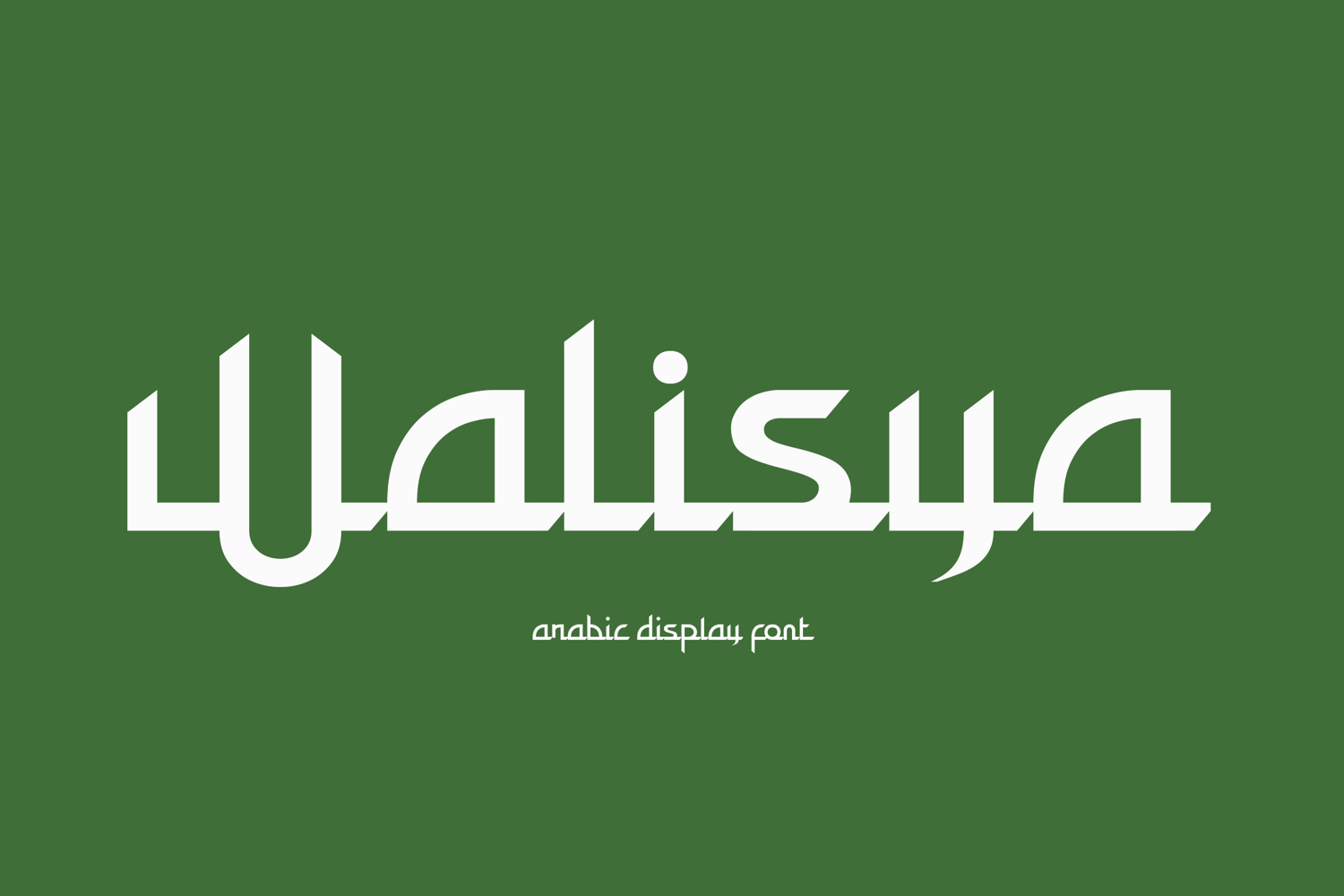
Walisya Font
Walisya is arabic style display font that looks stylish, elegant and futuristic. Walisya will perfect for your latest project.
Walisya is arabic style font that perfect for any projects like logo branding, photography, watermarks, invitations, visiting cards, advertisements, product designs, stationery, wedding designs, labels, product packaging, special events and much more